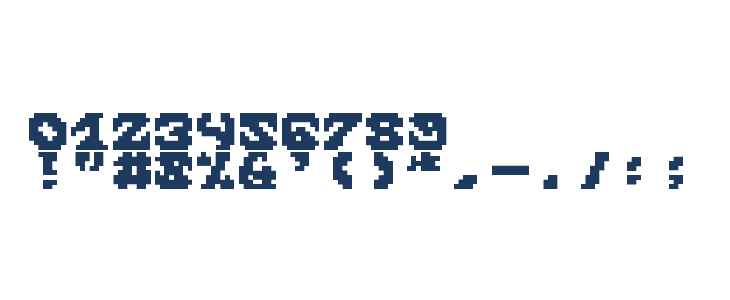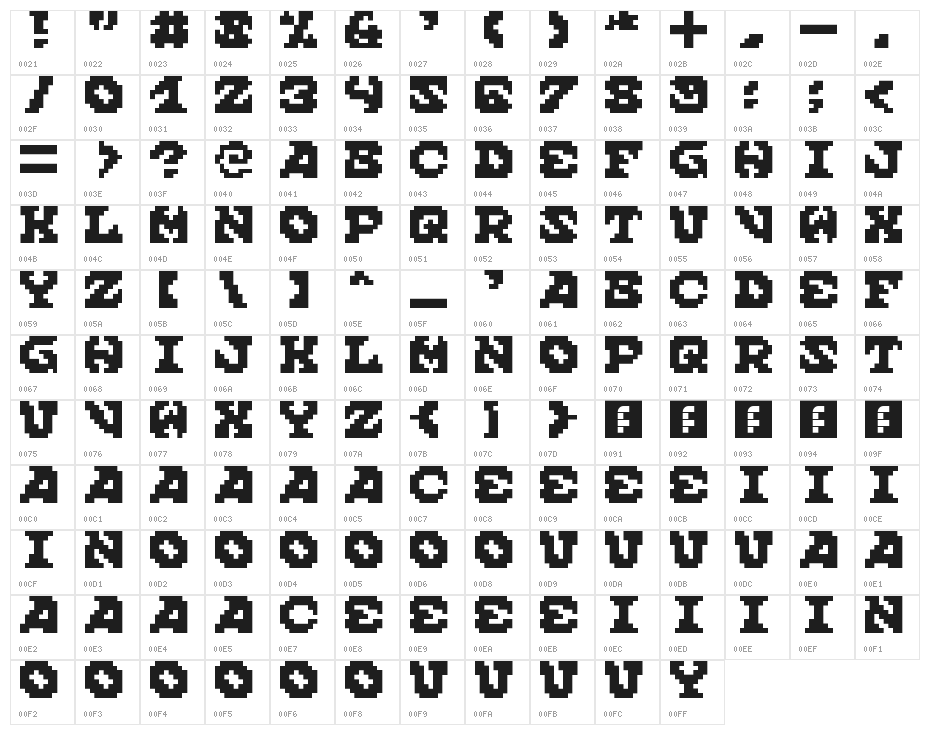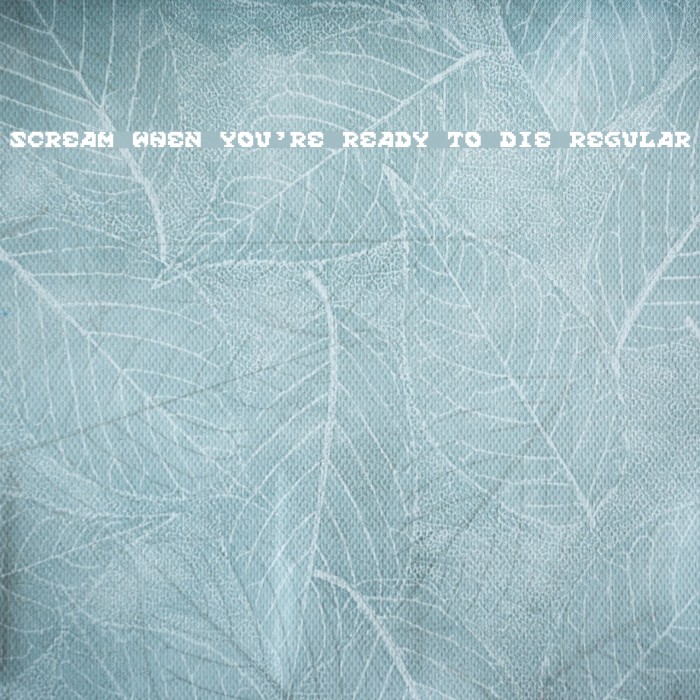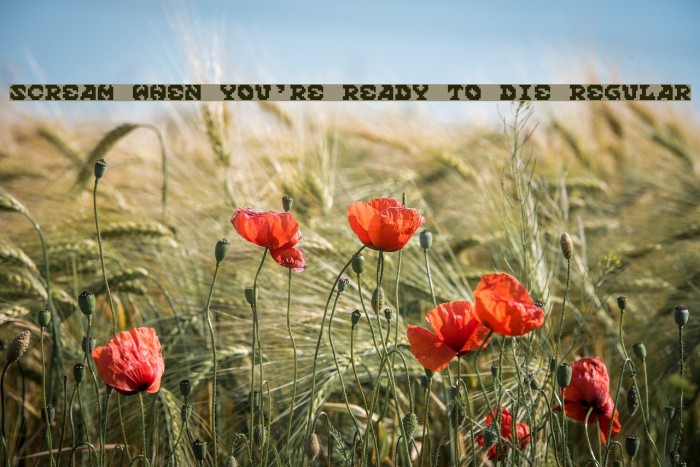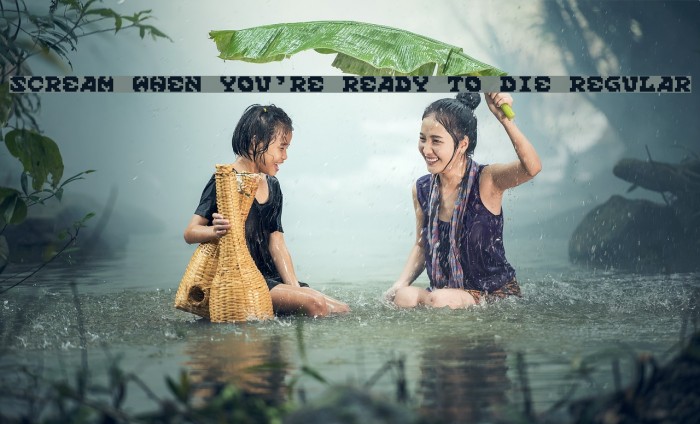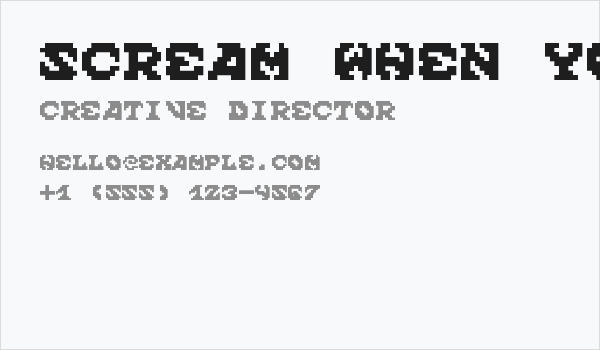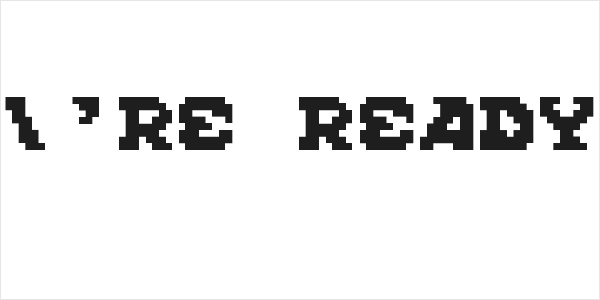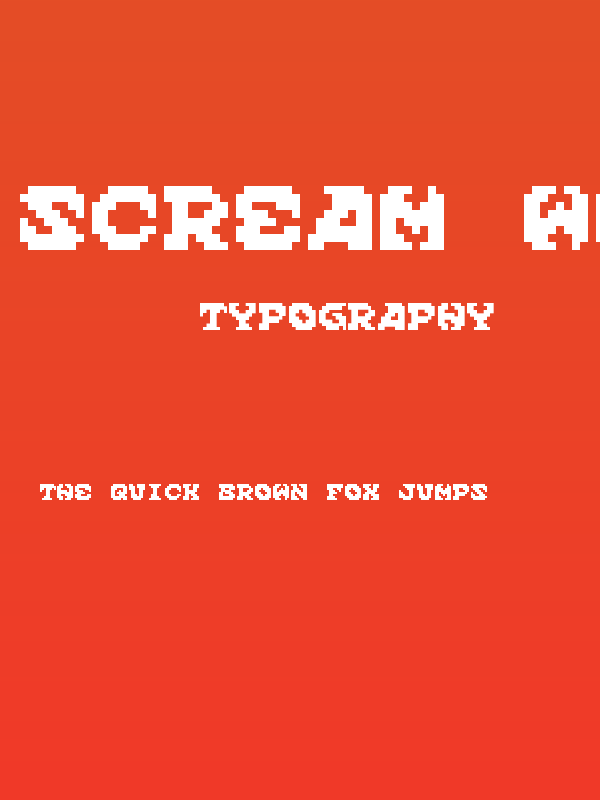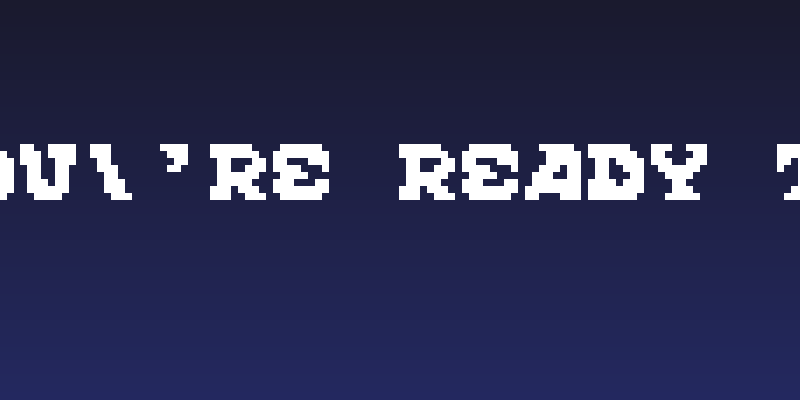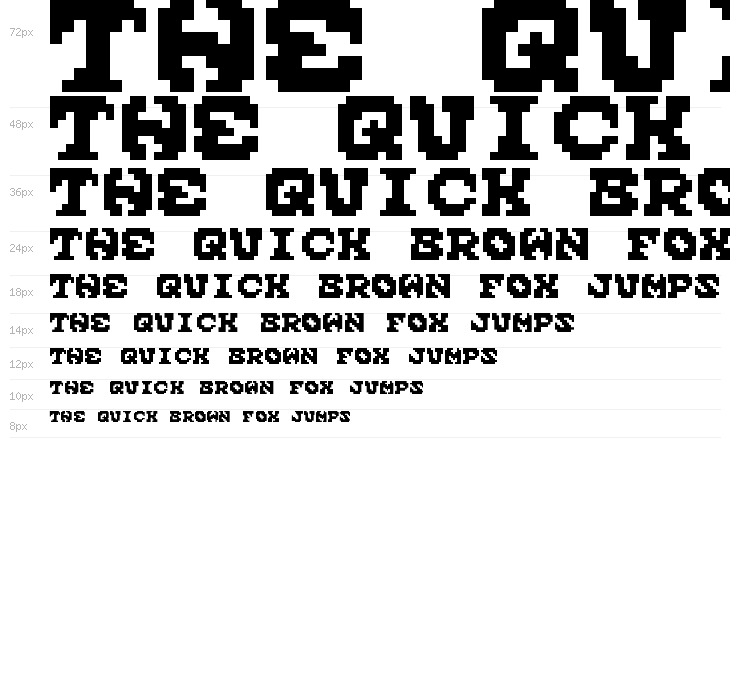
Scream When You're Ready To Die Regular Font
Scream When You're Ready To Die Regular Description
This font features a bold, pixelated style reminiscent of retro video games and digital displays. Each character is constructed with a blocky, geometric design, giving it a distinctly digital and modern feel. The uppercase and lowercase letters maintain a consistent height, contributing to a uniform appearance. The numbers and special characters follow the same pixelated theme, ensuring cohesion across all glyphs. This font's unique aesthetic makes it stand out, ideal for projects that require a nostalgic or tech-inspired look.
| Proposed Projects | Ideal for video game graphics, tech-themed posters, digital art projects, and retro-inspired designs. |